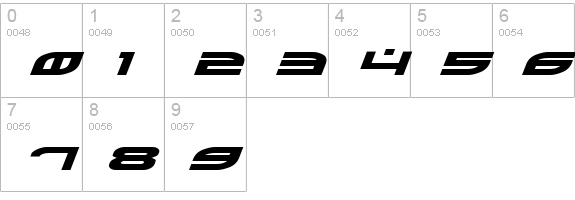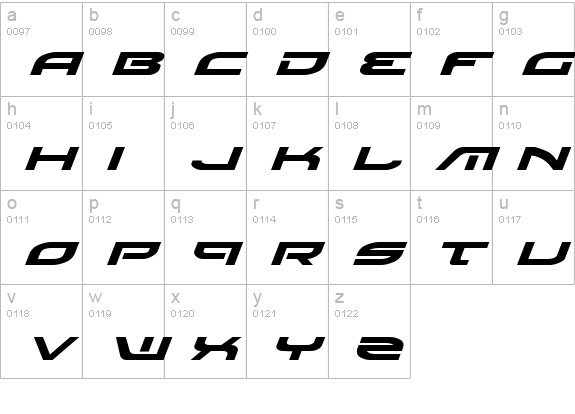
Battlefield Expanded Italic is a distinctive, extended-width, italic variant in the Battlefield typeface family \xE2\x80\x94 well suited to design and typography projects.
Introducing Battlefield Expanded Italic font, a stunning display typeface that exudes power and sophistication. With its bold and dynamic design, this font is perfect for making a statement in your designs. The italicized style adds a touch of elegance and flair, making it ideal for headings, titles, and other attention-grabbing text. What's even better is that Battlefield Expanded Italic font is completely free to download at FontsMarket.com. That's right, you can add this eye-catching font to your collection without breaking the bank. Don't miss out on the opportunity to elevate your designs with this versatile and striking typeface. Download Battlefield Expanded Italic font today and take your creative projects to the next level.